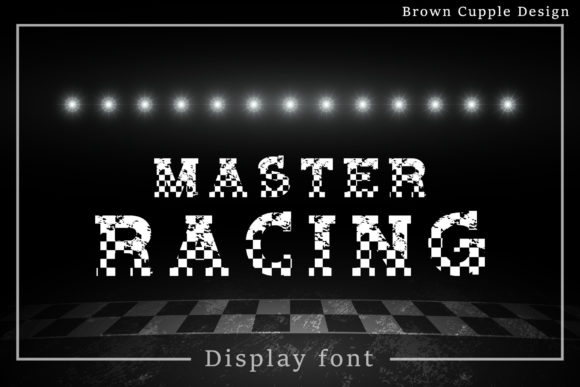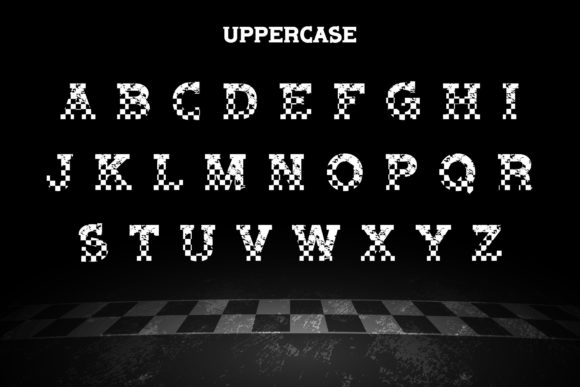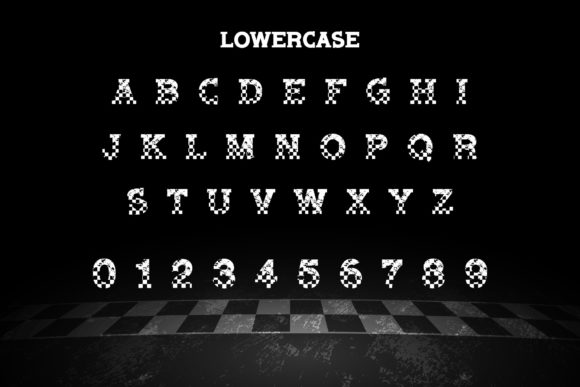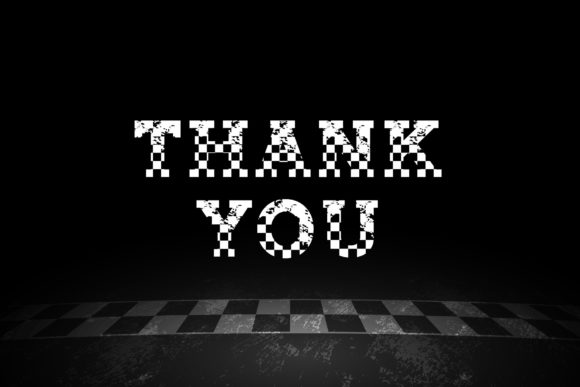
Master Racing Font
About the Master Racing Font
Experience the unique personality of Master Racing Font, a font designed for impact. Master Racing is a cool and retro styled display font. You can use it for various projects, such as blog posts, logos, branding, ads, invitations, greeting cards, planners, photo albums, decorations, and much more. Add it to any of your designs, and enjoy the results!
Master Racing excels as a display font for headlines, posters, and branding projects requiring a bold, retro aesthetic. Its strong character makes it ideal for motorsports, vintage-inspired designs, and projects aiming for a powerful, nostalgic feel. Avoid using it for body text or UI elements; its stylistic quirks hinder readability in extended passages.
Pairing Master Racing with a clean sans-serif like Helvetica Neue for body copy provides excellent contrast and readability. For a more playful feel, consider a rounded geometric sans-serif. A classic serif like Garamond can lend sophistication if a more refined retro look is desired.
The font’s core personality is energetic and assertive, conveying a sense of speed and excitement. It’s best suited for brands wanting to project a confident and retro-modern image.